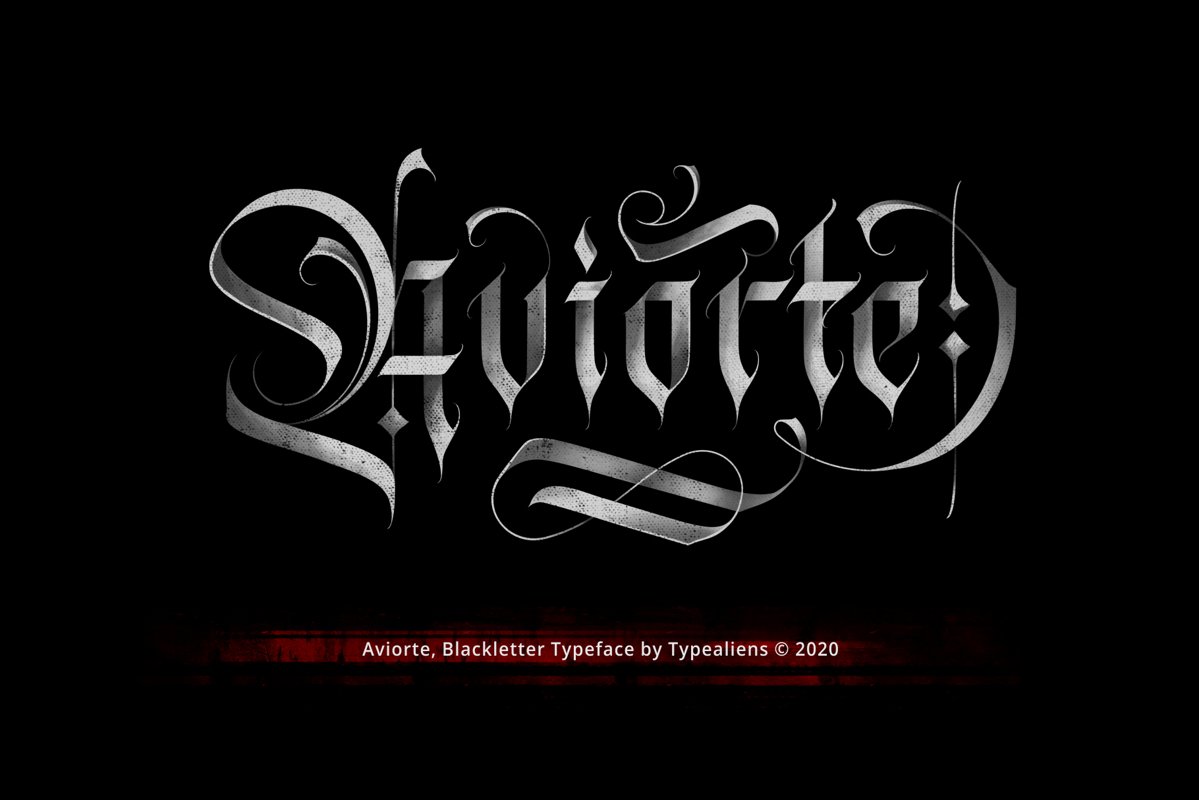
Aviorte
AVIORTE is an elegant, clean, formal and beautiful blackletter font. With the uppercase which has an ornament element makes it very beautiful and decorative. It is suitable as a title, headline, or logotype design, badge design, t-shirt design or branding etc.